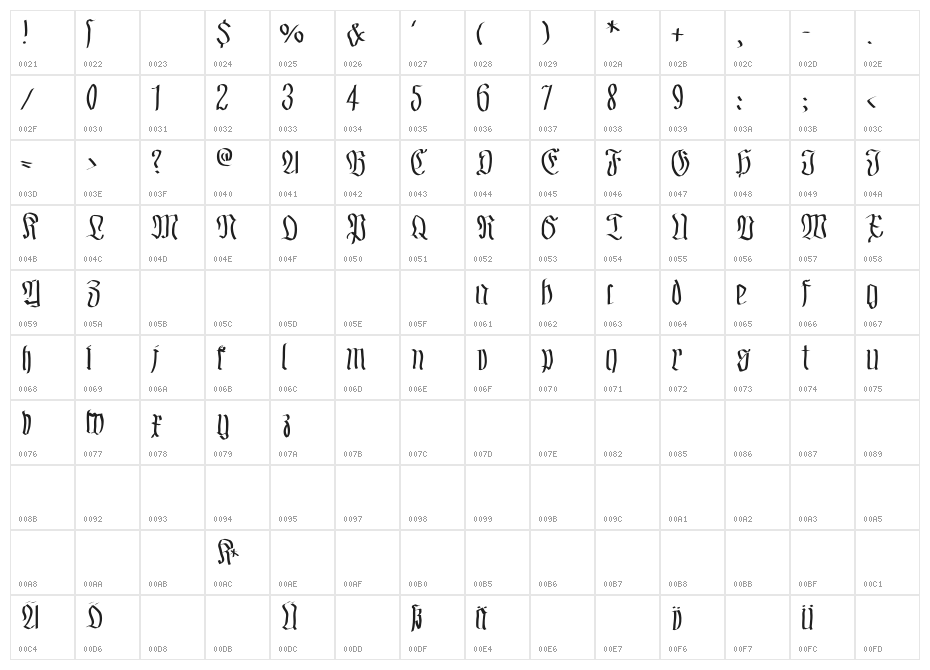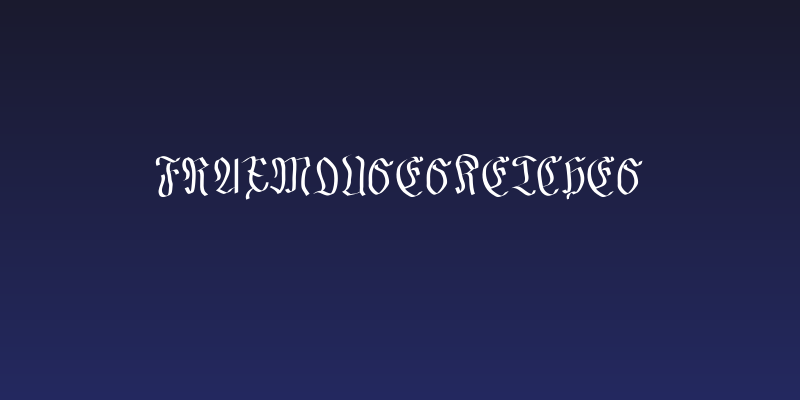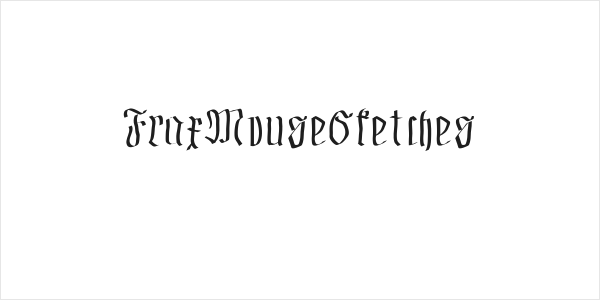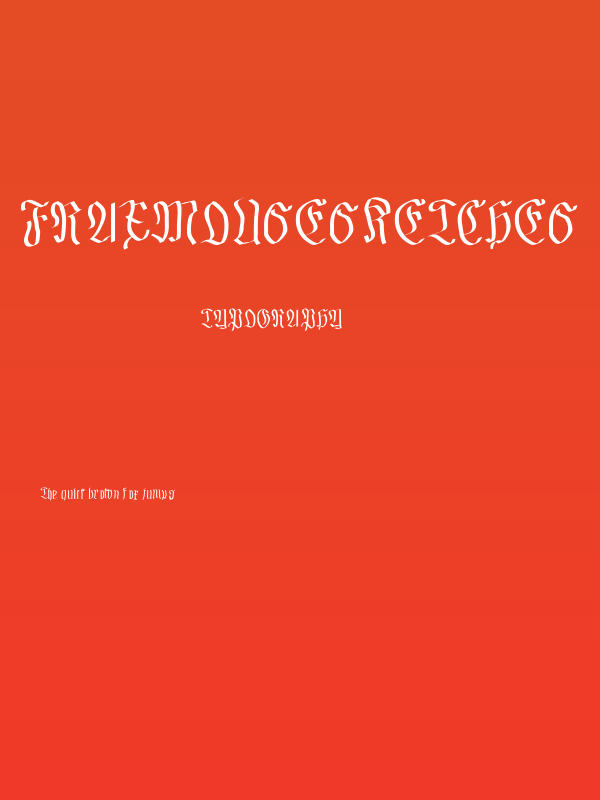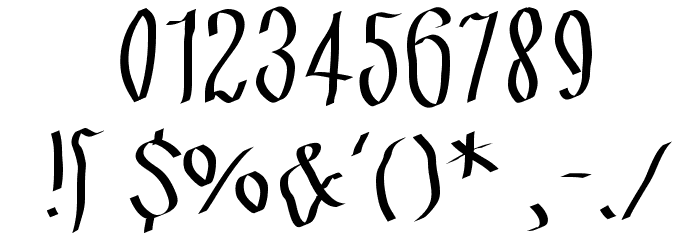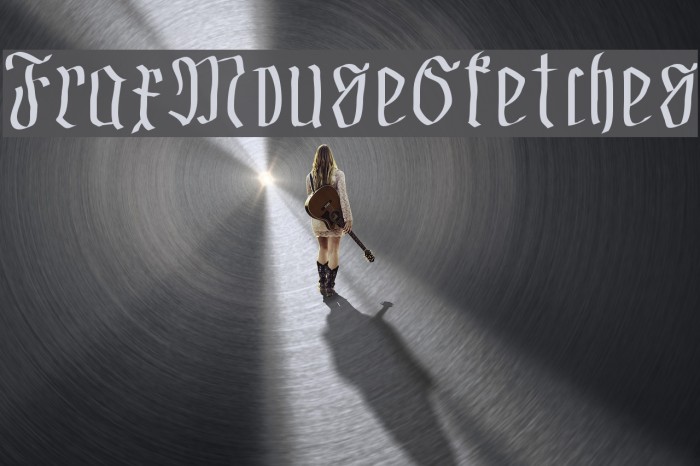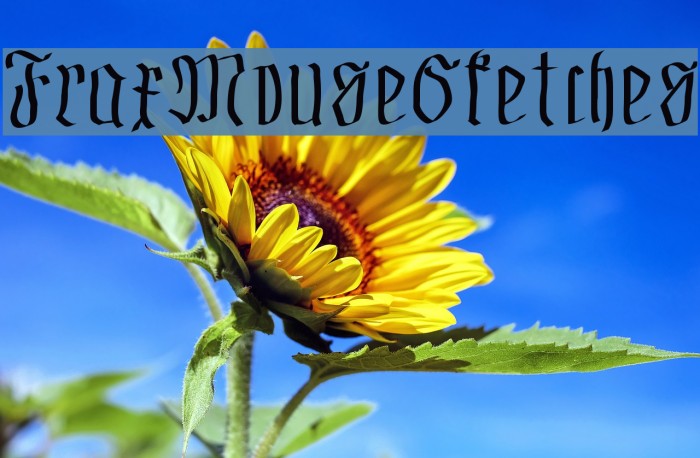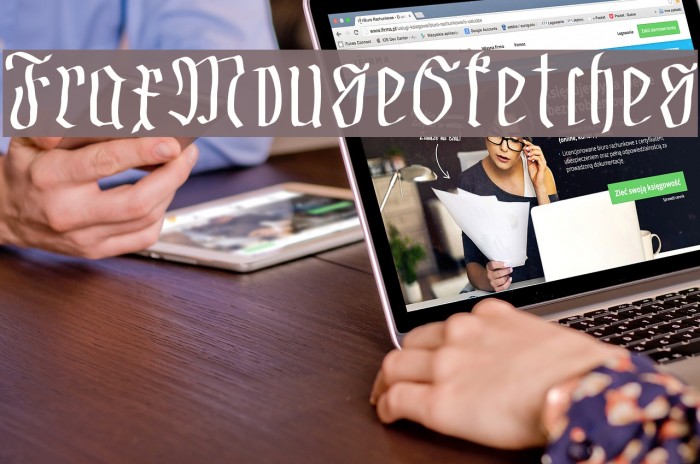
FraxMouseSketches Font
FraxMouseSketches Description
This font features a distinctive Blackletter style, characterized by its ornate and intricate letterforms. The strokes are bold and angular, with sharp edges and pointed terminals, giving it a dramatic and historical appearance. The uppercase letters are particularly elaborate, with sweeping curves and flourishes that enhance its decorative nature. The lowercase letters maintain the same level of detail, ensuring consistency throughout the typeface. The numerals and special characters are equally stylized, fitting seamlessly with the overall aesthetic. This font is reminiscent of medieval manuscripts and traditional calligraphy, making it ideal for projects that require a touch of elegance and antiquity.
| Proposed Projects | Ideal for historical documents, wedding invitations, book covers, and branding that requires a classic or medieval touch. |